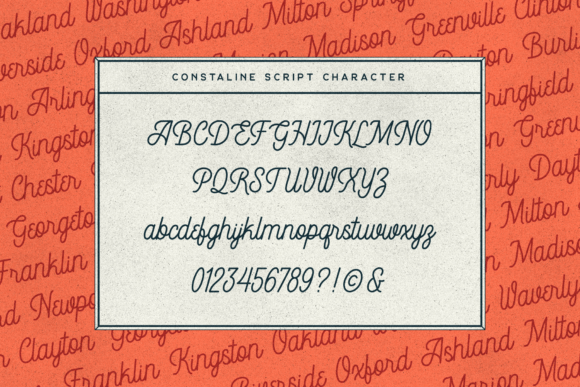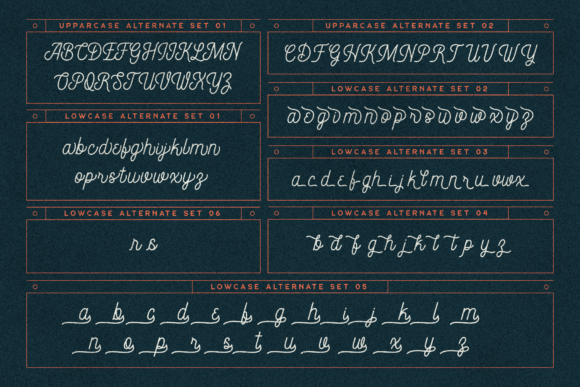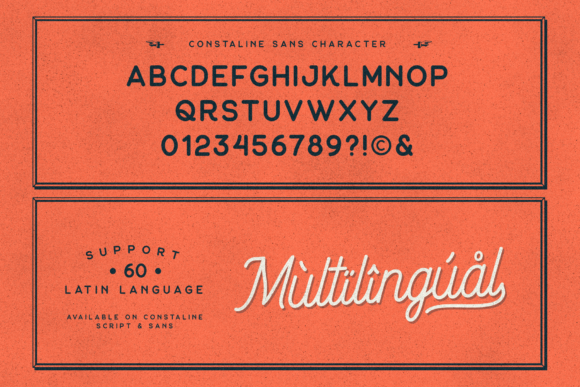
About Constaline Font
Constaline is a vintage styled duo font (script and sans serif). Fall for its ravishing style and use it to create gorgeous designs. This font is PUA encoded which means you can access all glyphs and swashes with ease!